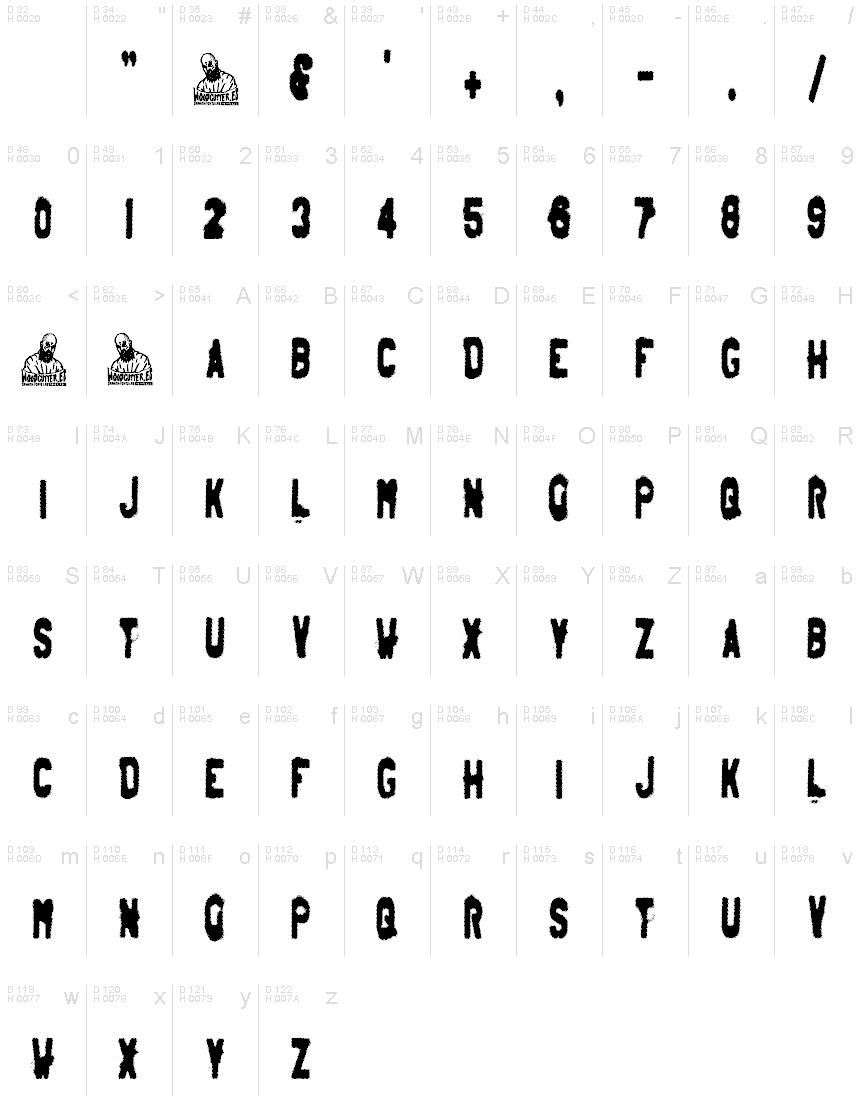
Coronel Manero
Coronel Manero font by Woodcutter is a display typeface featuring an eroded, grungy, and textured look. Its bold personality and condensed width evoke ruggedness and edginess, making it an ideal choice for projects that seek to convey authenticity. With a vintage influence reminiscent of mid-20th-century styles often seen in posters or album covers, this condensed yet impactful font captures attention with its distinctive aesthetic.
This free display font is designed for branding music bands, creating apparel targeting alternative fashion markets, or any project that benefits from a raw aesthetic. Use it in logos for skate shops and bands, rebellious marketing campaigns, book covers for dystopian novels or counterculture fiction books. Consider Coronel Manero also when designing social media graphics, magazine layouts about rock music lifestyle blogs focusing on underground movements or even tattoo parlors promotions targeting edgy audiences!